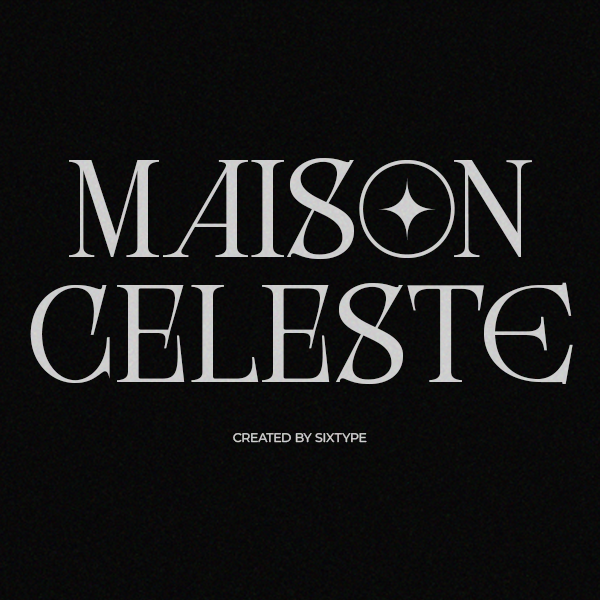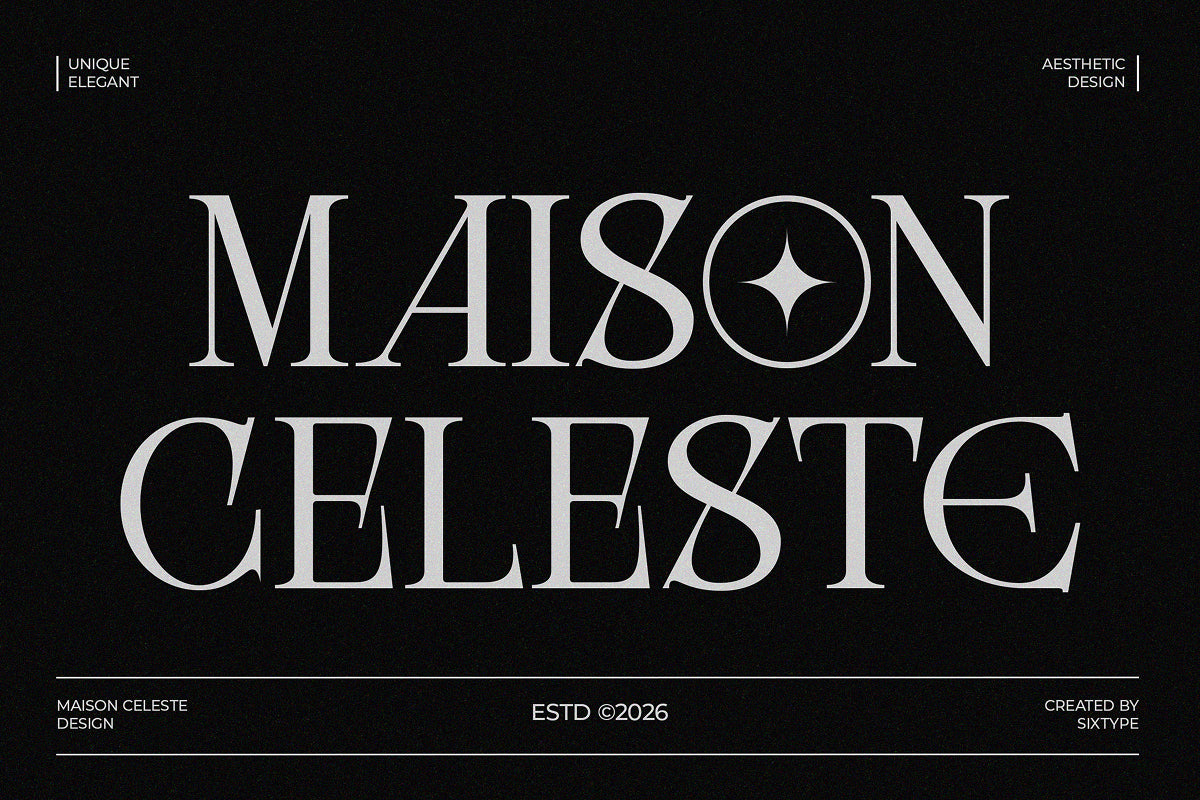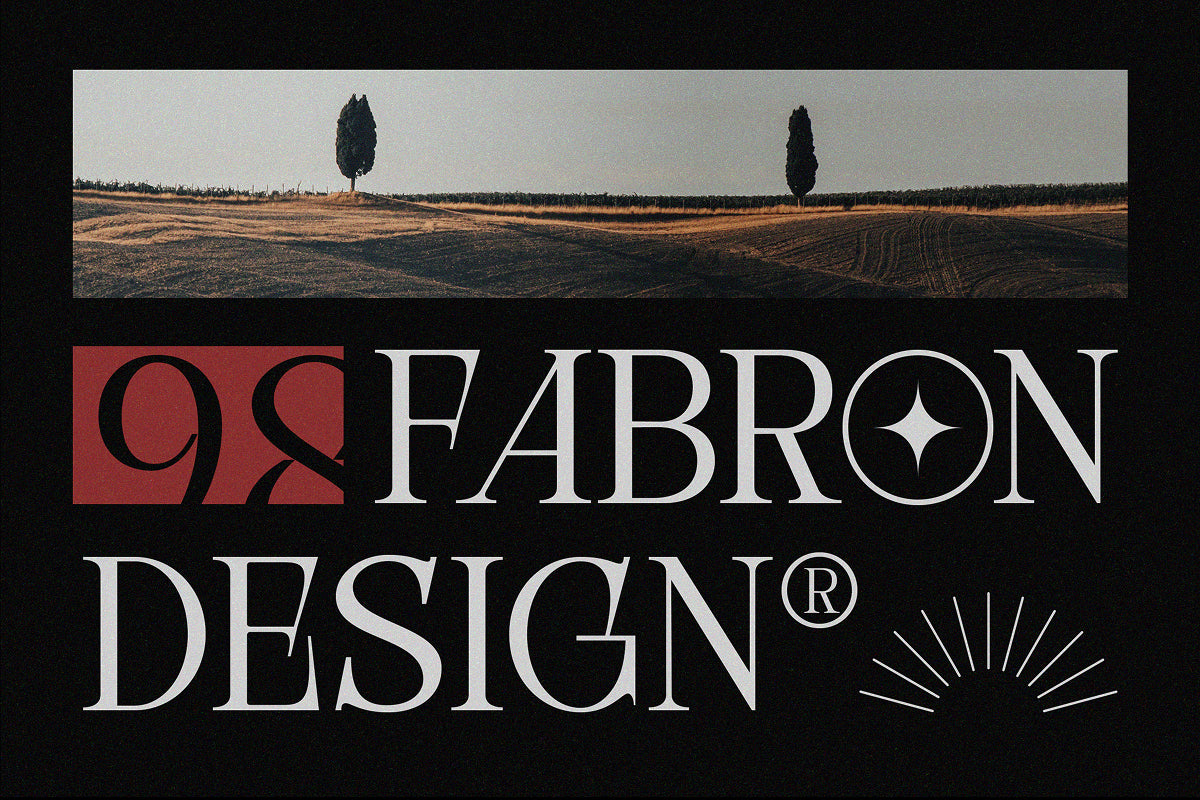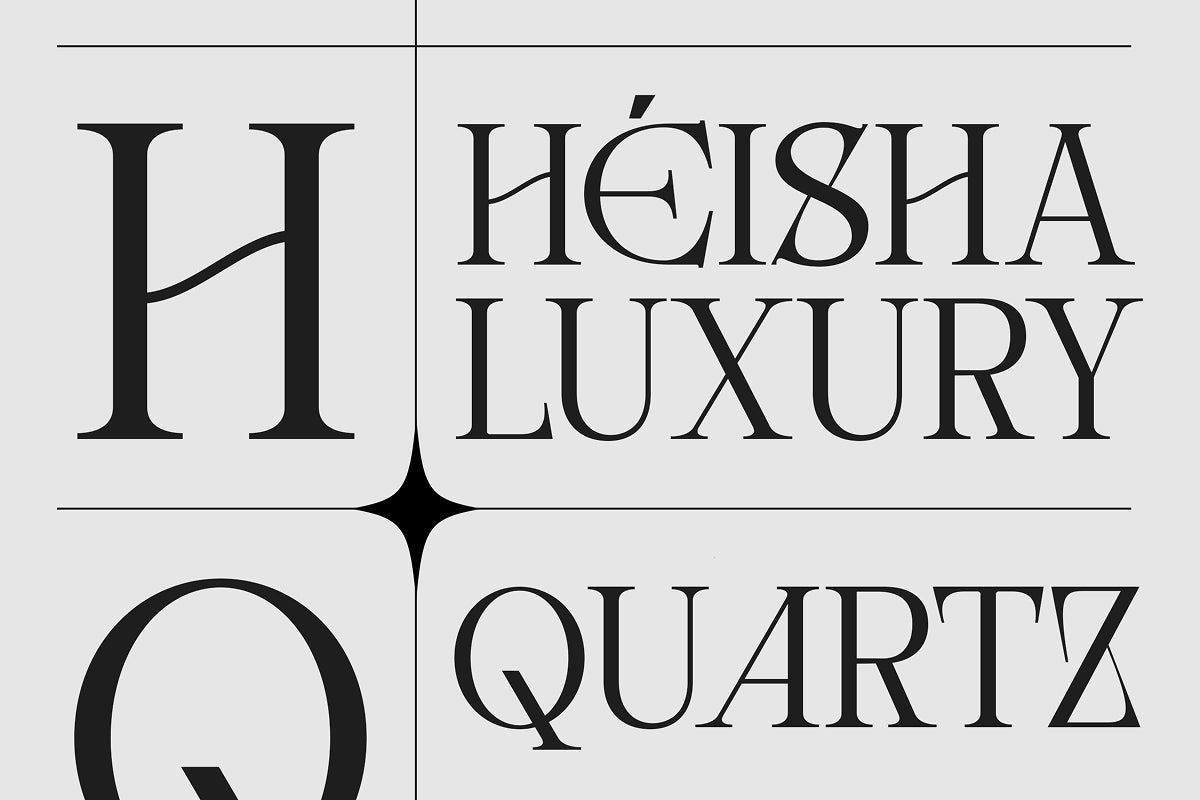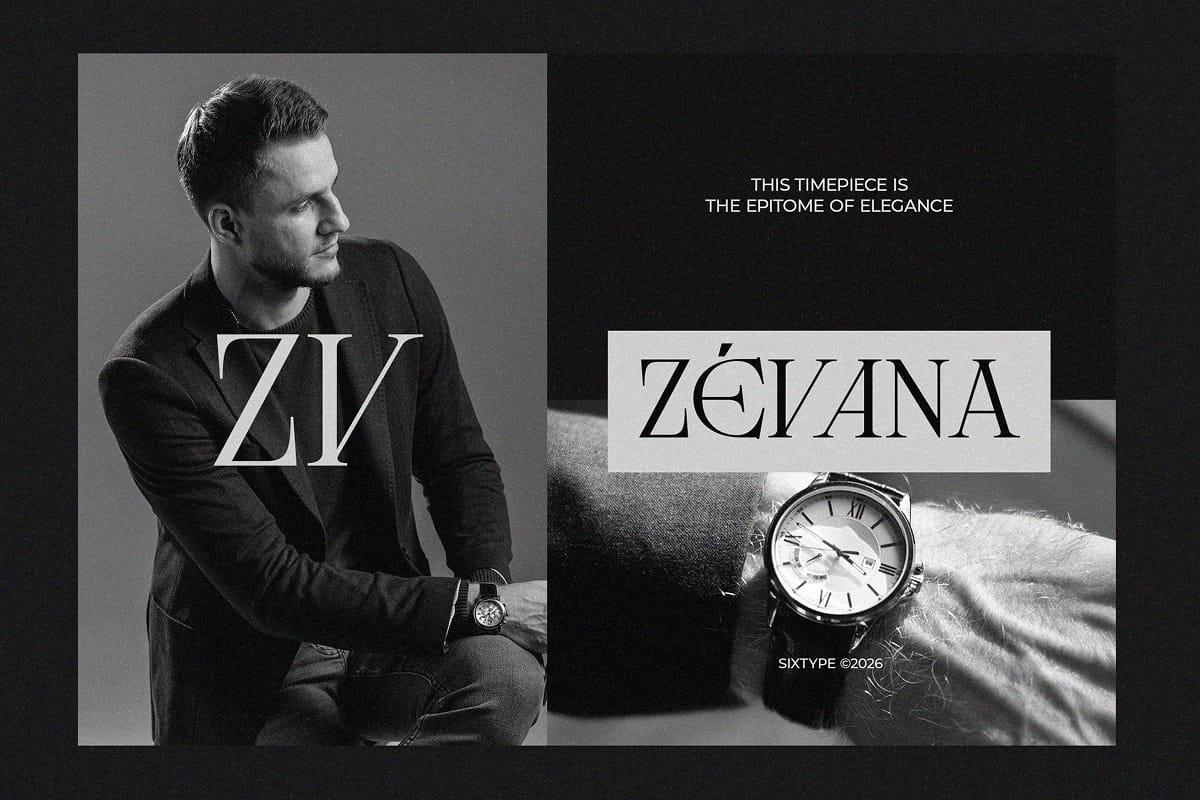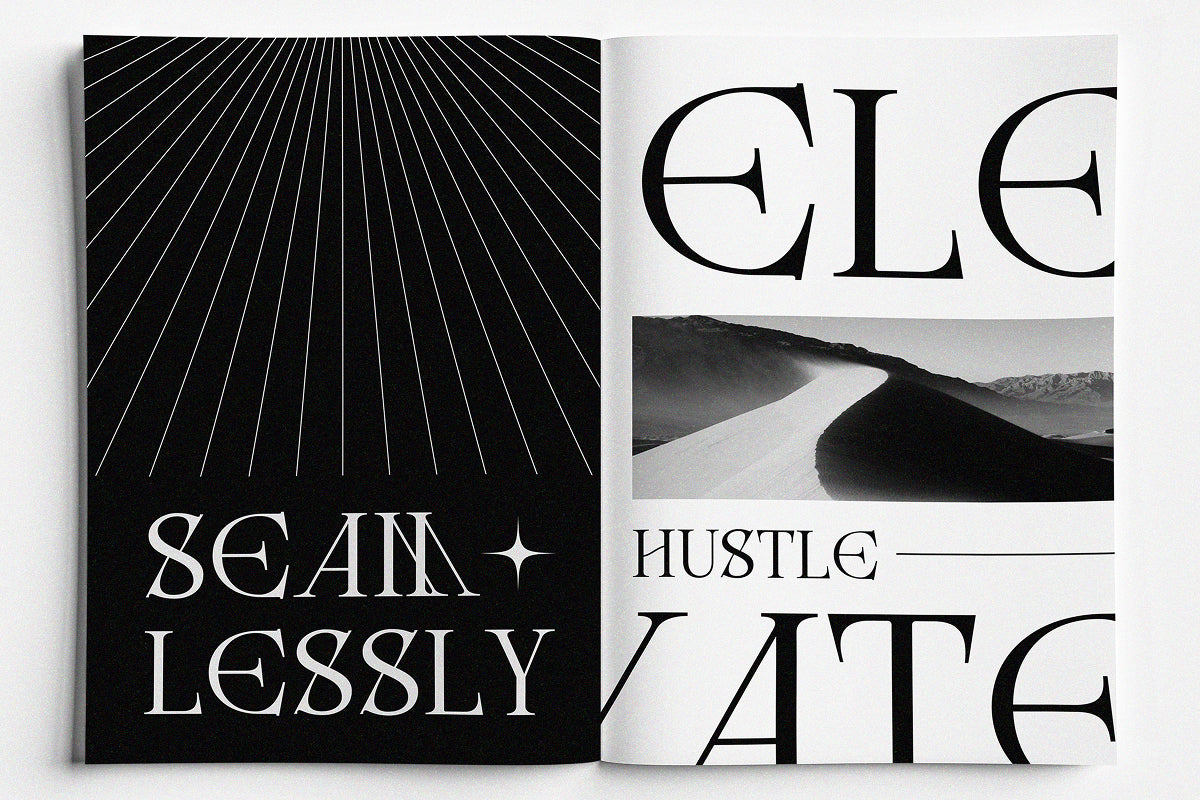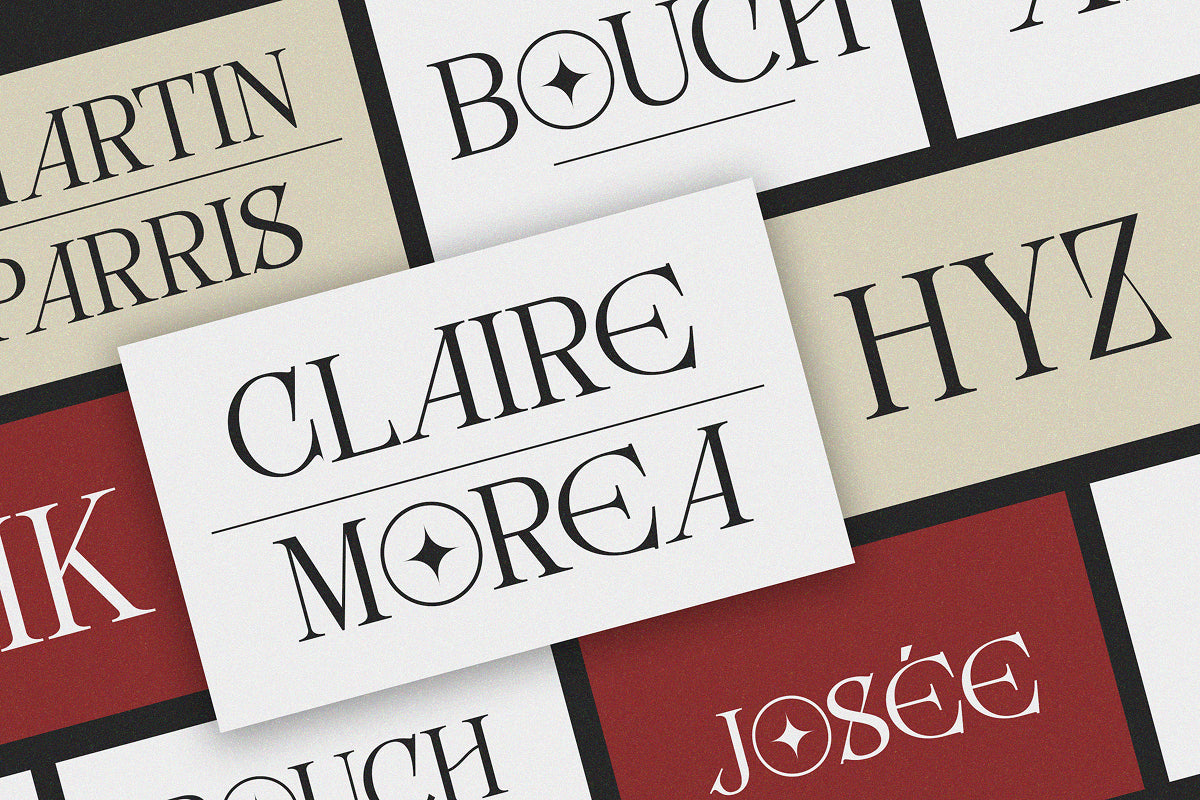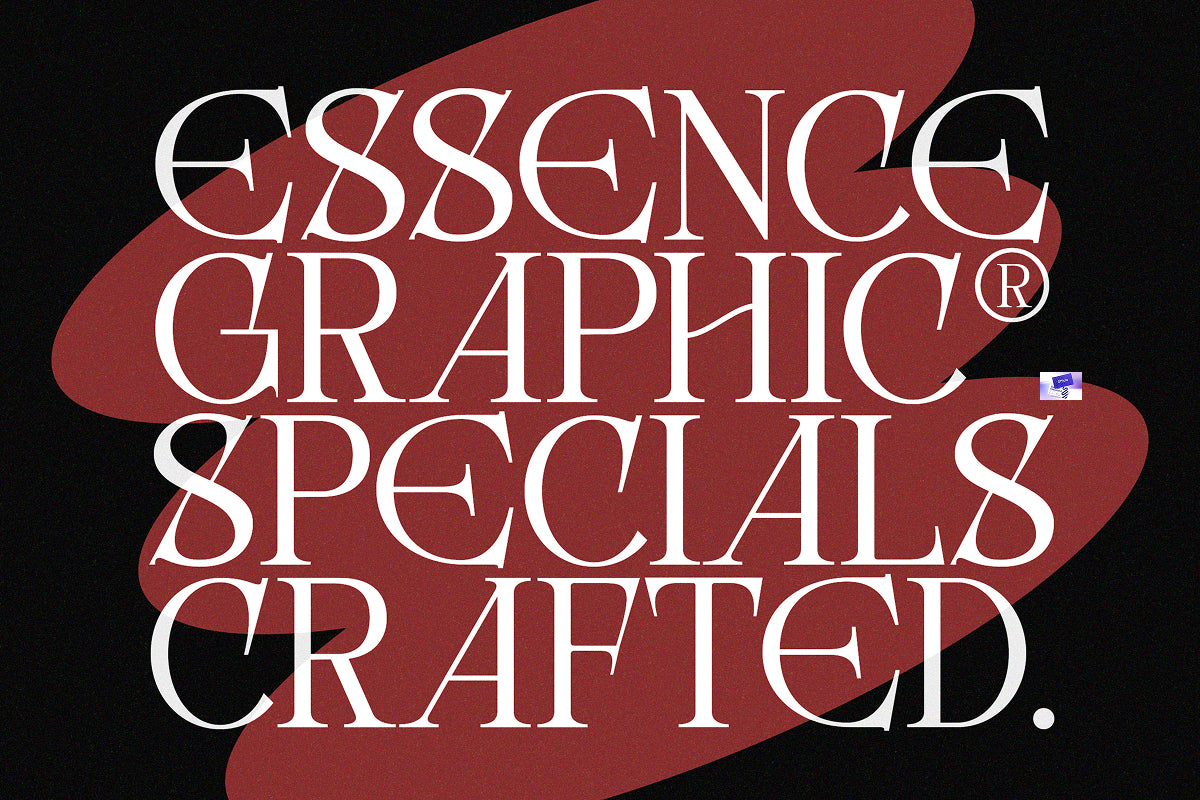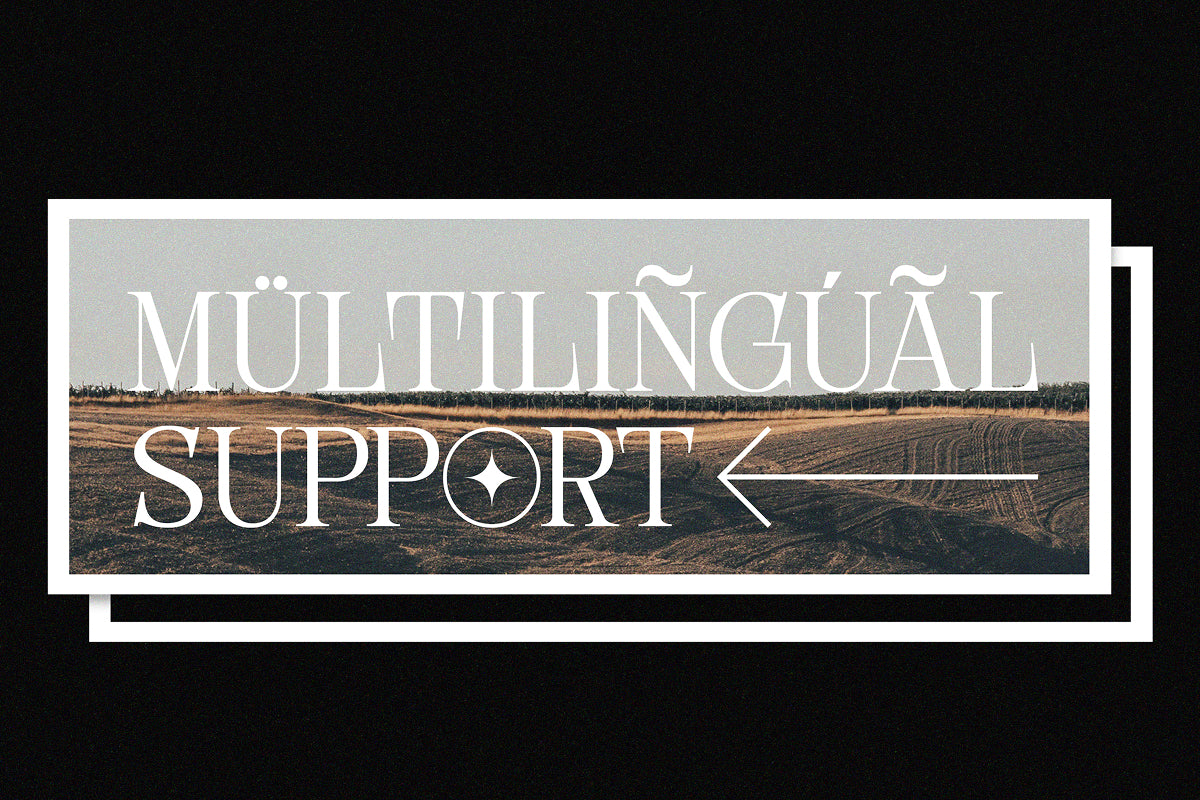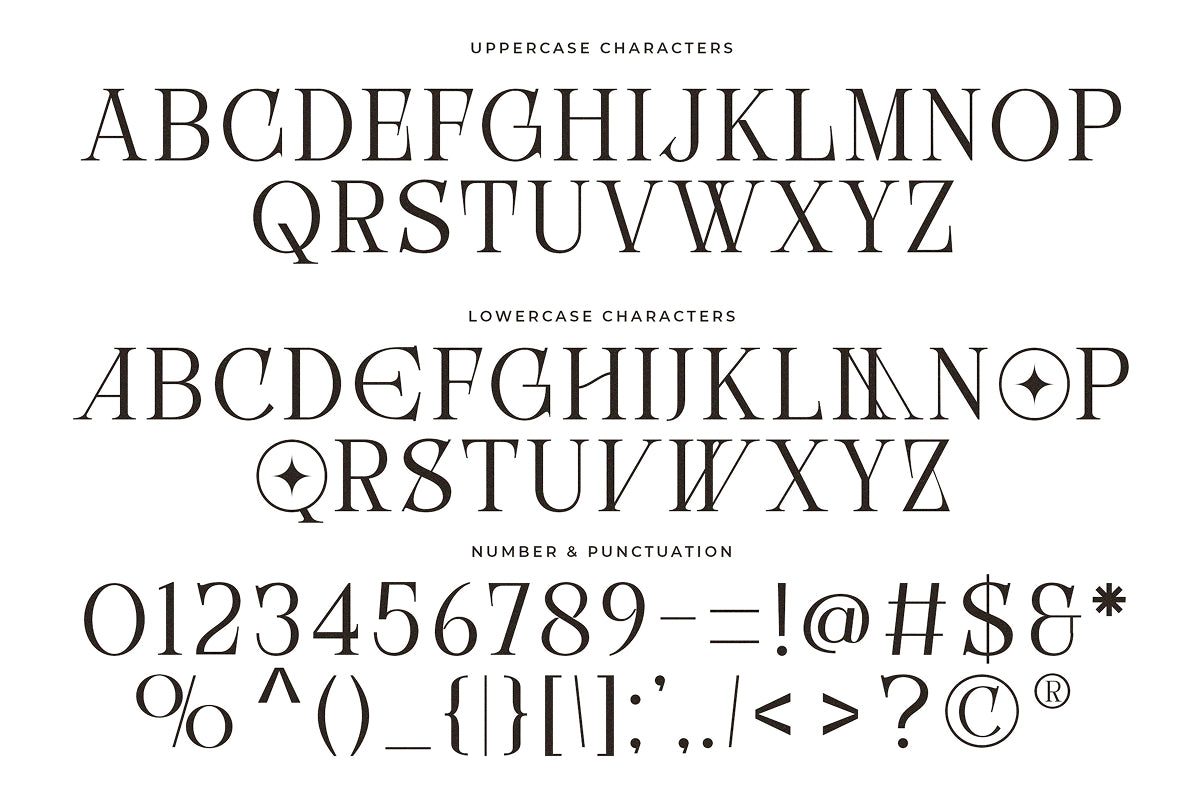
Maison Celeste Luxury Serif Font
Maison Celeste leans into a tall, refined serif structure with a distinctly celestial twist. Thin, sharp serifs and generous letter height give it an elegant, editorial presence, while a sparkling star motif replaces the round counter of the "O", a subtle astrological detail that sets the whole set apart from a standard luxury serif.
That celestial detail is where Maison Celeste does its best work. The tall proportions and fine serifs carry a refined, high-fashion tone at display sizes, and the star-accented "O" adds just enough personality to make the font feel distinct rather than purely decorative. It's built to be noticed without losing its editorial polish.
Picture Maison Celeste heading up a tarot or astrology brand, anchoring a celestial-themed wedding invitation, or stamped across a luxury beauty label. That's where its character really lands.
Maison Celeste suits astrology and spiritual branding, luxury beauty and fashion packaging, wedding stationery with a celestial theme, editorial headlines, and social media graphics that want an elegant, starlit statement.
Maison Celeste is a tall serif typeface featuring thin serifs and a star motif in place of the "O" counter. It includes the Regular weight in OTF, TTF, WOFF, and WOFF2 formats, with language support for English, Spanish, German, Italian, Portuguese, French, and core Western European Latin characters.